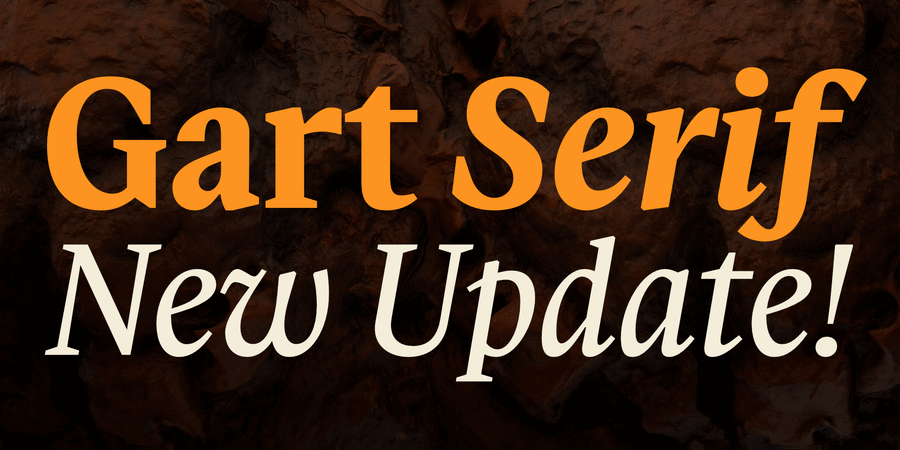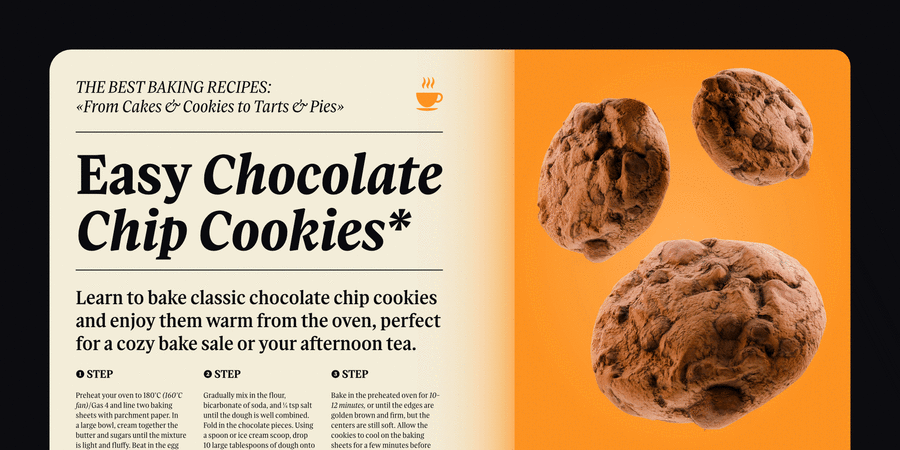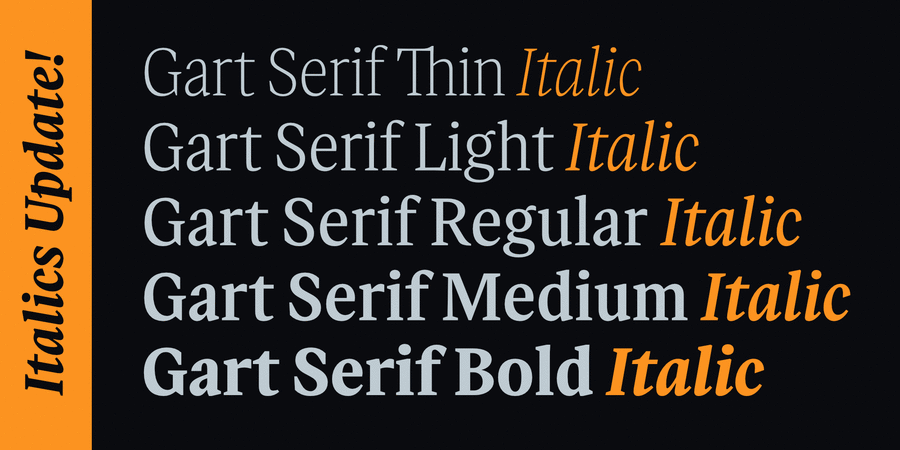
About Gart Serif is a serif typeface rooted in the traditions of transitional serifs from the 18th century, combined with modern design solutions. Compared to other transitional serifs, Gart Serif stands out with its narrow proportions, distinct contrast, and subtle slant of the curves, which enhance its character while maintaining readability. Gart Serif is an ideal font pair for Gart Sans.
With its variety of weights, Gart Serif can have either an elegant look, evident in its light weight, or a bold and sturdy appearance in its heavier styles. The typeface is well-suited for both setting large amounts of text and shorter headlines. Gart Serif pairs excellently with Gart Sans. Gart Serif consists of 10 styles, 642 glyphs, an true italic angle of 10°, basic Cyrillic and extended Latin, several stylistic sets, ligatures, numeral sets, and two variable fonts. The update includes a 10° italic for each style, allowing more flexible use of the typeface; general contours and kerning have also been improved. This typeface was designed by Vitalii Hotsaniuk in 2023 and updated in 2024. Gart Serif supports 83 languagesUkrainian, English, German, Polish, Portuguese, Spanish, French, Russian, Czech, Dutch, Italian, Swedish, Turkish, Finnish, Belarusian, Serbian, Bulgarian, Estonian, Lithuanian, Albanian, Afrikaans, Basque, Breton, Valencian, Galician, Gaelic (Scottish), Danish, Indonesian, Irish, Icelandic (Win), Karakalpak, Catalan, Norwegian, Occitan, Rhaeto-Romance, Sami Lule, Tswansky, Uzbek (Lat.), Faroese, Frisian, Chamorro, Estonian (Win), South Sami, Albanian (Win), Hungarian, Upper leprechauny, Karelian, Latvian (Mac), Lithuanian (Mac), Maori (Mac), Moldovan (Lat.), Lower Sorbian, Romanian (Win), Slovak, Slovenian, Turkmen (Lat.), Croatian (Win), Estonian (Mac), Kurdish, Latvian, Maori, Romanian, Abazin, Avar, Agul, Adyghe, Darginsky, Ingush, Kabardino-Circassian, Kabardian, Karachay-Balkar, Kumyk, Lak, Lezghian, Macedonian, Mordovian-Moksha, Mordovian-Erzya, Nogai, Rutulian, Tabasaran, Tatar, Tsakhur, Chechen Functions of font family Gart SerifTypeface use in layout:
Associations for font family Gart SerifTypeface personality and character:
calm, flat, harmonious, clear, business, balanced, unobtrusive, moderate, technically, accurate, logical, practical, static, cultural, educated, stable, economical, serious, strict, clever, reputable, traditional, classic, aristocratic, salon art, solemn, noble, high-quality, nostalgic, old-fashioned, rich, conservative, secular, silver, masterful, luxurious, expensive, spectacular, proud, gentlemanly, pretentious, elite, fashionable, expressive, select, polite, thin, easy, delicate, fragile, transparent, convincing, responsible, important, strong, dense, self-assured, robust, ambitious